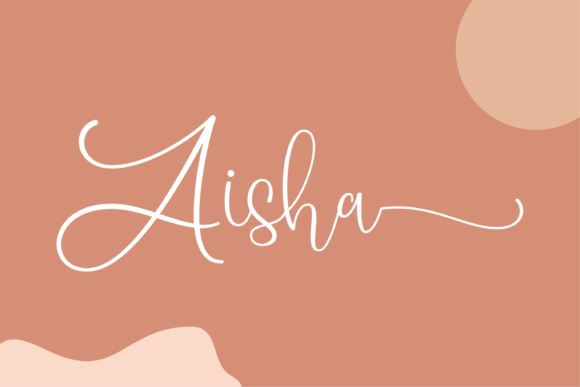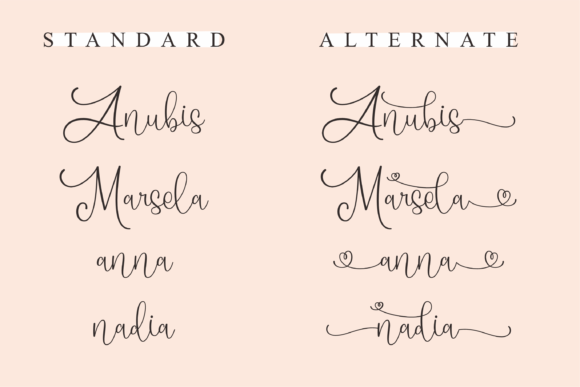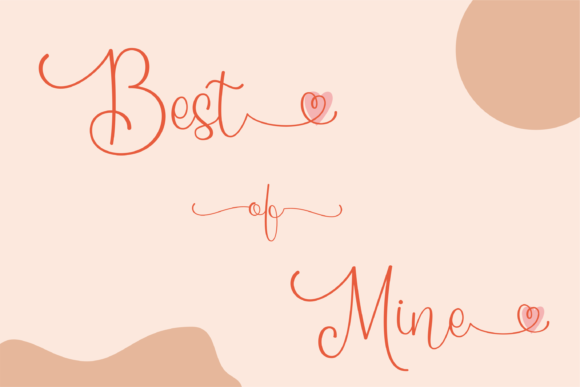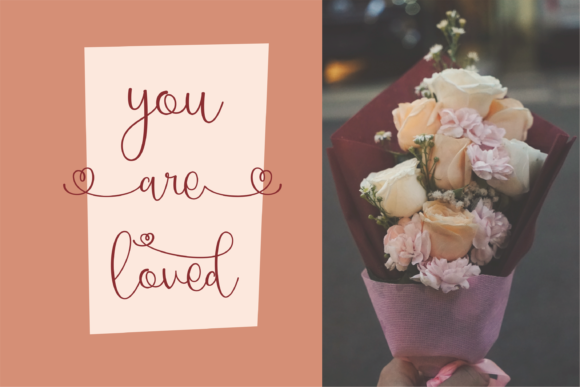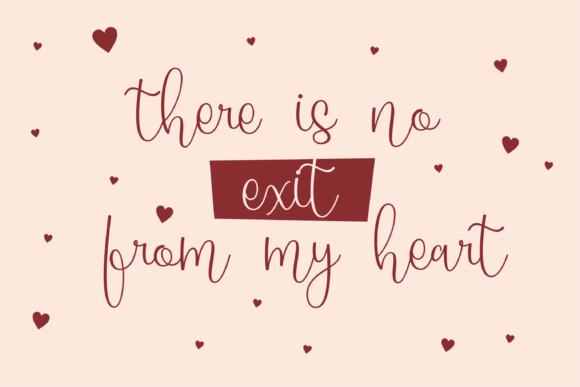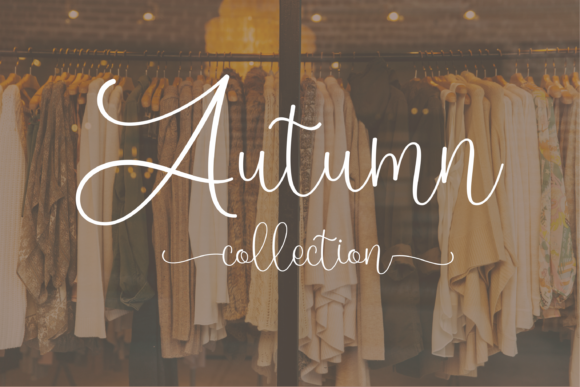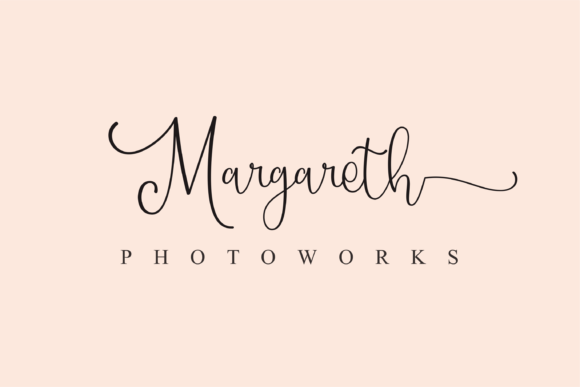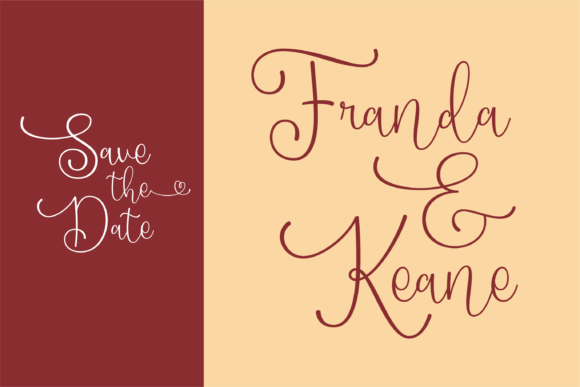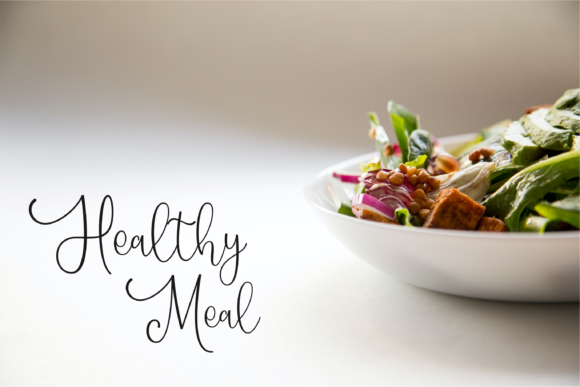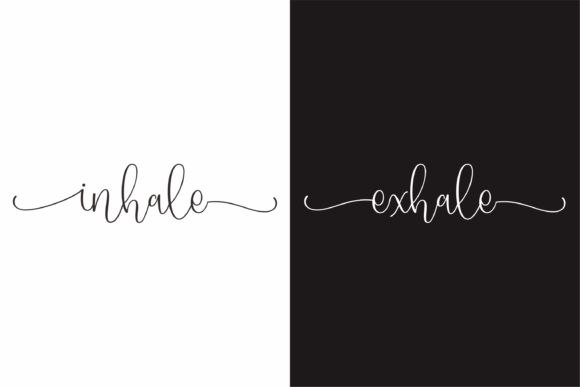
Aisha Font
Introducing “Aisha,” a sweet and elegant handwritten font that brings a touch of charm and sophistication to your designs. With its flowing characters that dance along the baseline, Aisha adds a whimsical and romantic feel to any project.
Aisha is designed with a focus on elegance and beauty. Each letter is carefully crafted to create a harmonious balance between legibility and artistic flair. The result is a font that captures attention and evokes a sense of grace and femininity.
This font is perfect for a wide range of design applications. Whether you’re working on branding, invitations, stationery, logos, or any other project that requires a touch of elegance, Aisha is the ideal choice. Its versatility allows it to adapt to various design styles, from modern and minimalist to romantic and vintage.
One of the highlights of Aisha is its PUA encoding. This means that you can easily access all of the glyphs and swashes, unlocking a world of decorative possibilities. With the ability to add swashes and flourishes to your text, you can create unique and personalized designs that stand out from the crowd.
The beauty of Aisha lies not only in its visual appeal but also in its ease of use. The font is designed to work seamlessly in both digital and print environments, ensuring that your designs look stunning in any medium. Its legibility and clear letterforms make it a joy to read, ensuring that your message comes across effectively.
Whether you’re designing wedding invitations, greeting cards, blog headers, or social media graphics, Aisha will bring a touch of sweetness and elegance to your projects. Its handwritten style adds a personal and heartfelt touch, making it perfect for creating designs that evoke emotion and connection.
In summary, Aisha is a sweet and elegant handwritten font that adds charm and sophistication to your designs. With its flowing characters, PUA encoding, and versatility, Aisha allows you to create beautiful and personalized designs with ease. Let Aisha be the perfect companion for your next design project, adding a touch of grace and romance to your creative endeavors.